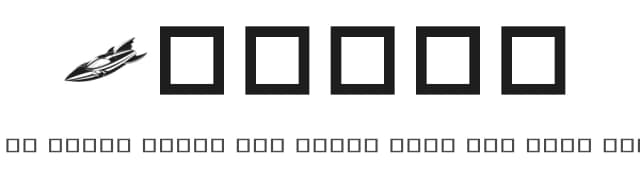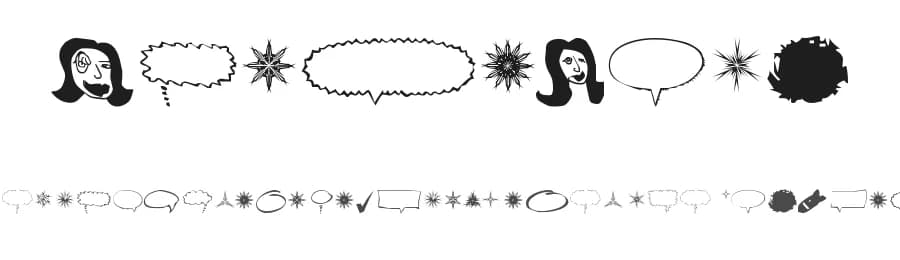
About DingoBatz Font
DingoBatz is a dingbat font designed by Ronald Design, Studio Sans One. It includes 95 glyphs, a regular weight, TTF (TrueType) format, and 104 languages. DingoBatz is free to download; check the license details on this page before commercial use. Dingbat fonts like DingoBatz work best for icons, ornaments, bullet points, and decorative accents.
DingoBatz Font is a versatile dingbats font that works for both headings and body text. Pair it with a contrasting sans-serif or serif font to add visual interest and a clear distinction between titles and body copy.
DingoBatz Font
by Ronald Design, Studio Sans One
DingoBatz Font is a dingbats typeface by Ronald Design, Studio Sans One, ideal for logos, invitations, branding, and creative projects.